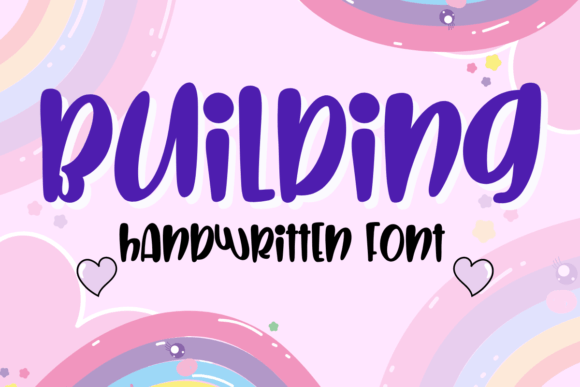
The Handwritten Charm of Building Font
An Honest Review of Building Font
- ✨ Unique Handwritten Style: Building Font has a distinct, handcrafted feel that adds a personal touch to any project.
- ✅ Readability: Despite its handwritten nature, the font remains surprisingly readable, even at smaller sizes.
- ✅ Versatility: It’s perfect for a wide range of applications, from taking notes and writing diary entries to creating greeting cards and craft projects.
While Building Font is incredibly useful, there are a few quirks to be aware of:
- ⚠️ Limited Availability of Extended Characters: Some users might find the character set a bit limited, especially when working with languages that require special characters.
- 🤔 Occasional Kerning Issues: As with many handwritten fonts, you might encounter some kerning issues, particularly when pairing Building Font with other fonts.
The Story Behind Building Font
Building Font was inspired by the traditional handwritten notes and letters that have been exchanged between friends and family for generations. Its creator aimed to capture the warmth, personality, and intimacy of handwritten communication in a digital font that could be used by anyone. The result is a font that feels both nostalgic and refreshingly modern.
| Font Name | Building Font |
| Author | Sirinart |
| What makes Building Font unique? | Building Font stands out due to its distinctive handwritten style, which combines personal touch with readability. |
| Is Building Font suitable for body text? | While Building Font is primarily designed for display and short text passages, it can be used for body text in certain contexts, especially where a personal touch is desired. |
| Does Building Font support OpenType features? | Yes, Building Font supports OpenType features, allowing users to access a range of glyphs and stylistic alternates to enhance their designs. |